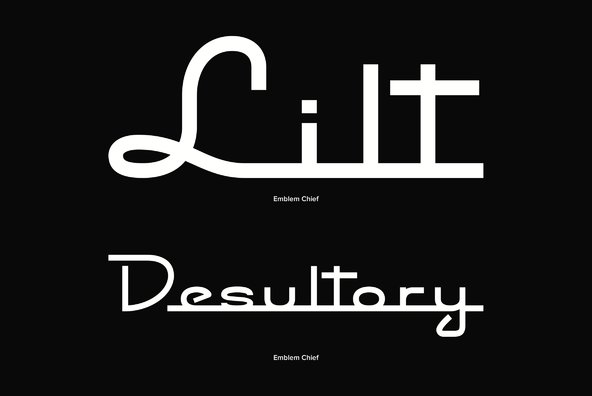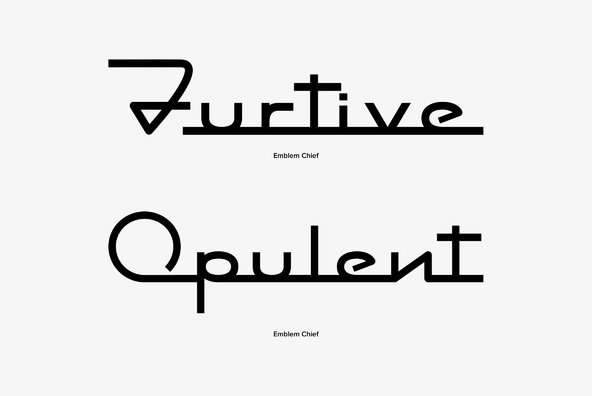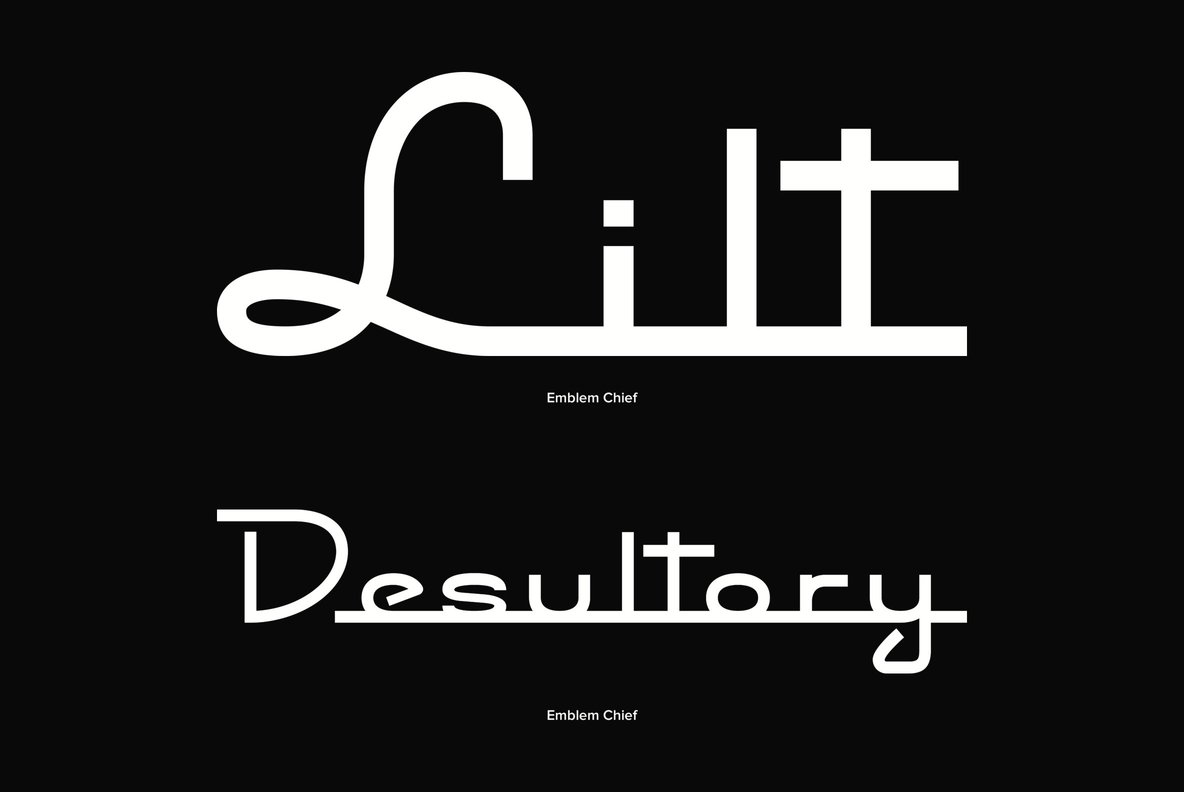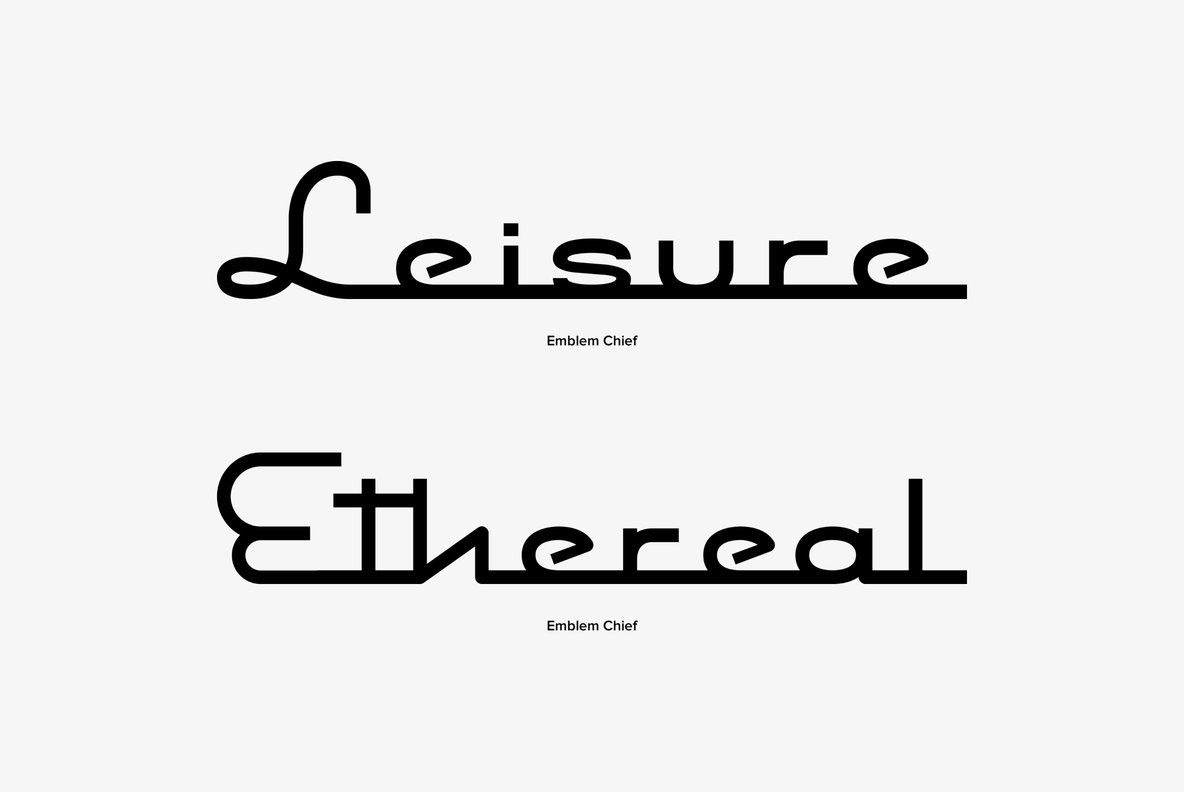
Emblem Chief
Foundry: Font Diner
Grab your Turtle Wax and start polishing that beautiful automobile brightwork to a chomey shine with Emblem Chief inspied by 1950s automotive lettering.